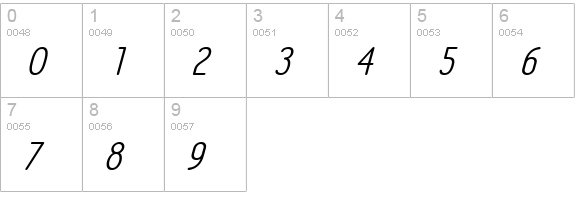
LA Headlights BTN BoldItalic Font Details
Introducing the captivating LA Headlights BTN BoldItalic font, an exquisite fusion of boldness and elegance. This font is designed to illuminate your projects with its striking presence, making it the perfect choice for headlines, titles, and eye-catching designs. With its unique combination of bold strokes and stylish italics, LA Headlights BTN BoldItalic exudes a sense of dynamism and sophistication. Its carefully crafted letterforms create a harmonious balance between strong, commanding lines and graceful curves, resulting in a font that captivates and engages the viewer. But what truly sets LA Headlights BTN BoldItalic apart is its accessibility. This font is freely available to download at FontsMarket.com, ensuring that it can be easily obtained by designers and enthusiasts alike. Whether you're working on a personal project or a professional endeavor, LA Headlights BTN BoldItalic offers unlimited creative possibilities without any financial constraints. Embrace the freedom of expression that LA Headlights BTN BoldItalic provides, and let your designs shine with its bold and italicized charm. Elevate your typographic compositions, grab attention with your headlines, and leave a lasting impression with LA Headlights BTN BoldItalic. Download this extraordinary font today at FontsMarket.com and embark on a journey of unlimited creativity.